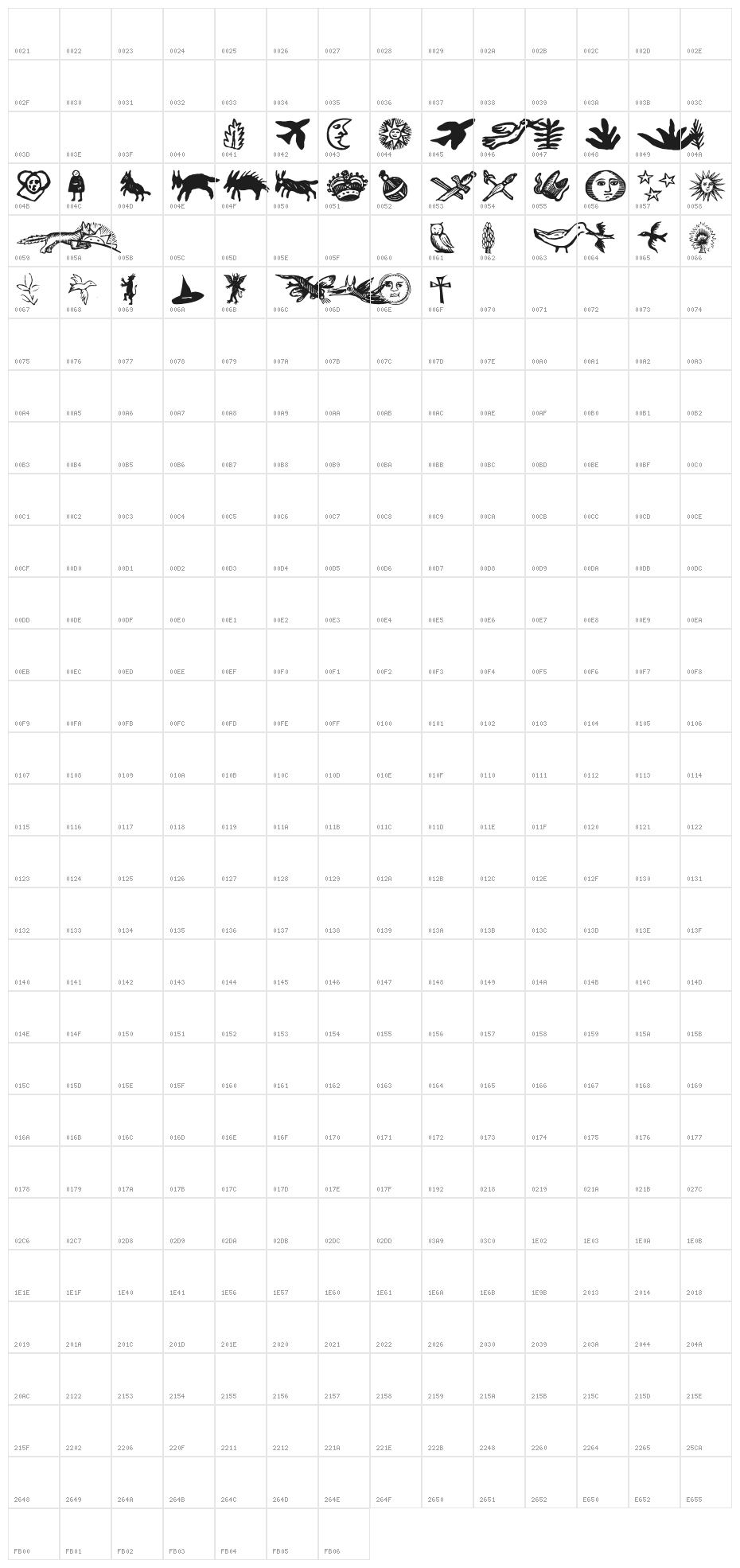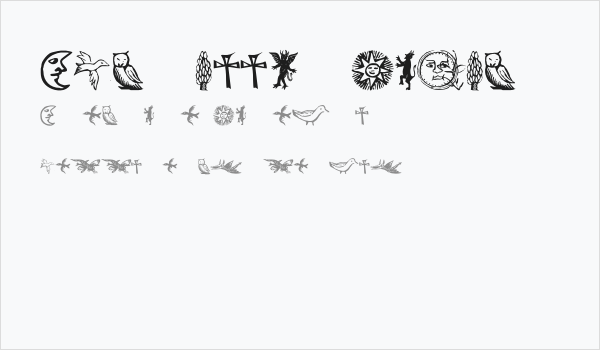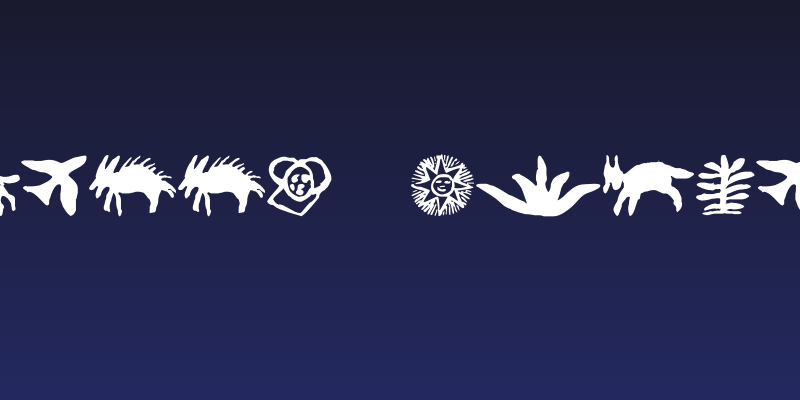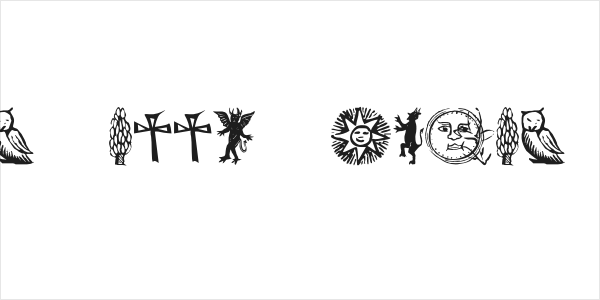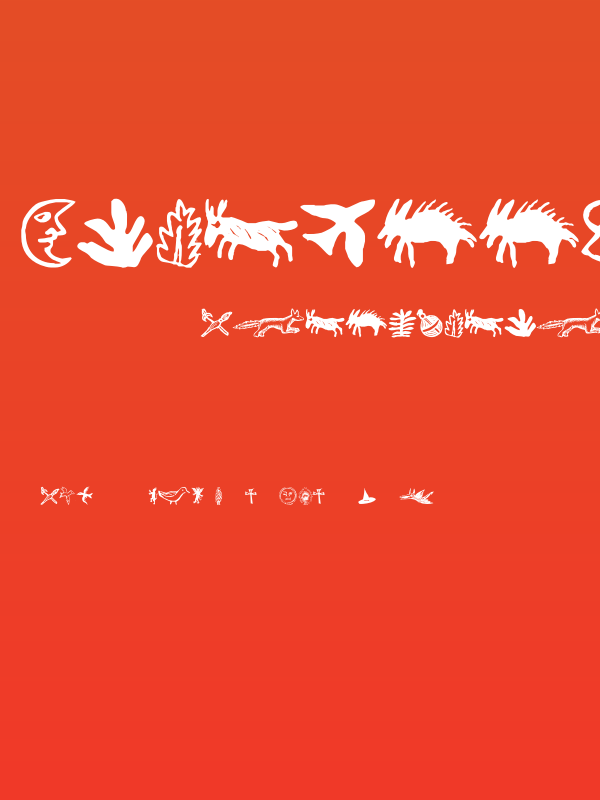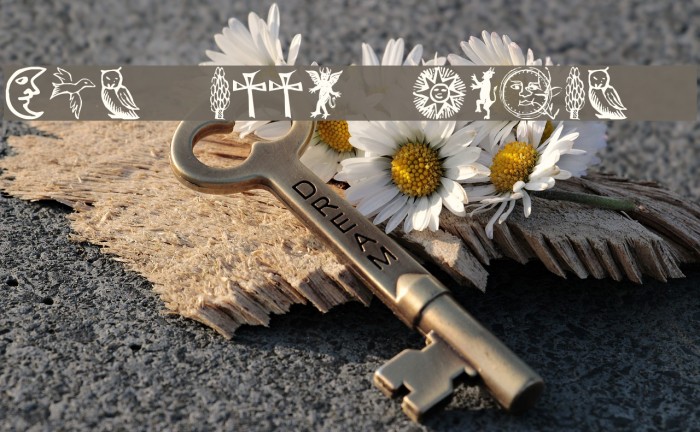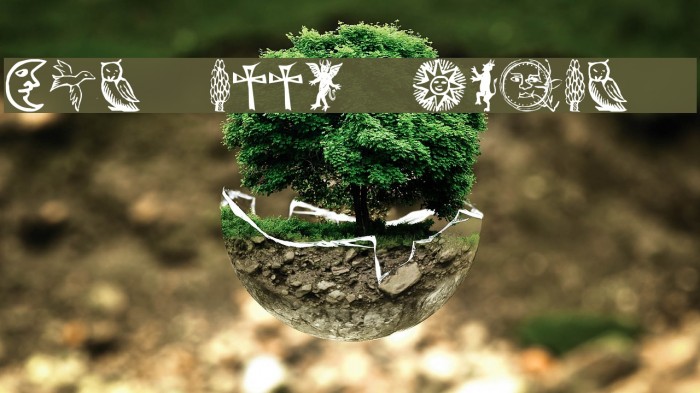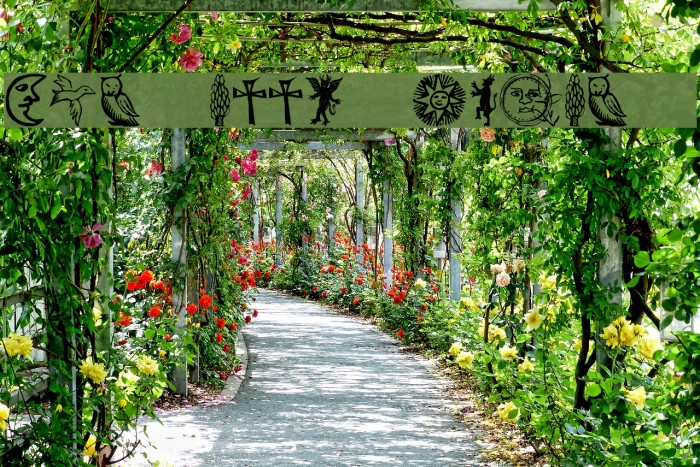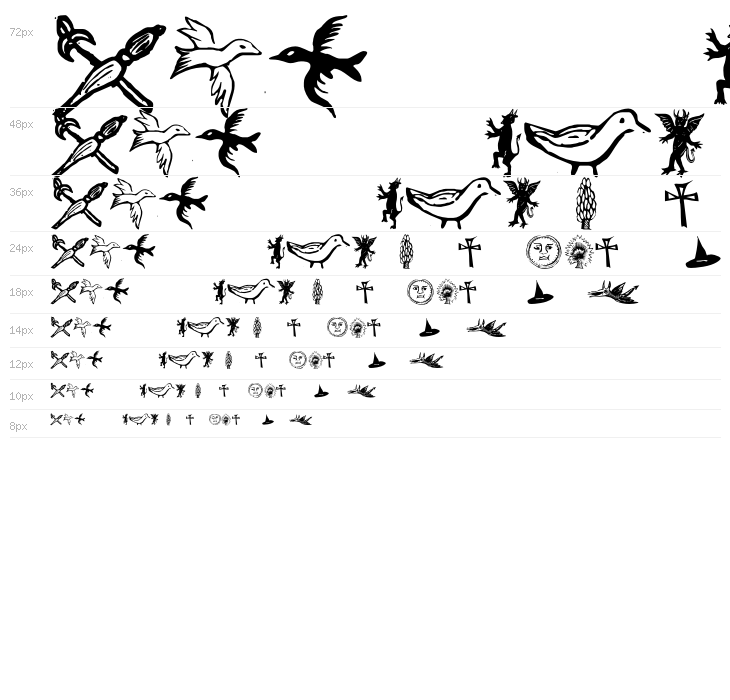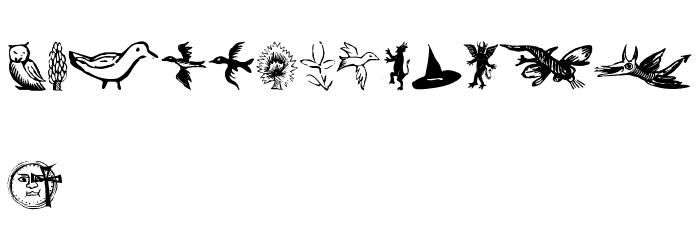
Chapbook-Dingbats Font
Chapbook-Dingbats Description
This collection features a variety of whimsical and illustrative symbols, each with a distinct, hand-drawn quality. The designs include natural elements like leaves and animals, celestial motifs such as the sun and moon, and mythical creatures. Each symbol is intricately detailed, capturing a sense of folklore and fantasy. The style is reminiscent of traditional woodcuts, offering a vintage and artisanal feel. These dingbats are perfect for adding a touch of charm and character to any project.
| Use Case | Logos, Illustrations, Decorative elements |
| Proposed Projects | Ideal for use in creative projects such as book illustrations, greeting cards, posters, and craft designs. They can also enhance branding materials with a unique, artistic flair. |